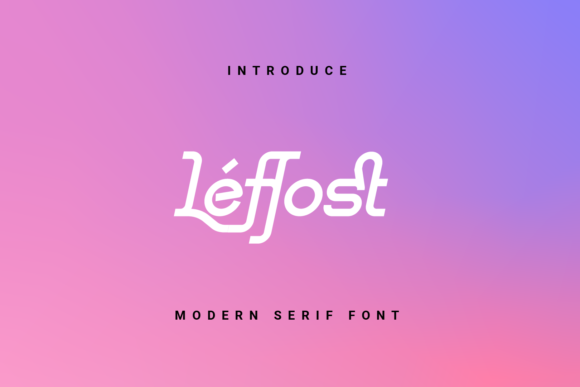
Embark on a typographic adventure with Leffost, the display font that exudes vintage charm and modern allure. Its meticulously crafted curves and sharp edges evoke a sense of nostalgia, while its versatility empowers you to create stunning designs that stand out from the crowd.
Leffost is the perfect companion for your CV, injecting a touch of sophistication and individuality into your professional presentation. Its PUA encoding grants you effortless access to a world of glyphs and swashes, unlocking endless possibilities for customization.
Whether you're crafting eye-catching logos, elegant invitations, or captivating social media posts, Leffost will elevate your creations to new heights. Its timeless appeal and adaptability make it an essential tool for any designer seeking to make a lasting impact.
Indulge in the creative possibilities that await you with Leffost. Its vintage flair will ignite your imagination and inspire you to weave captivating tales through the art of typography. Embrace the allure of Leffost and let your designs flourish with a touch of timeless elegance.